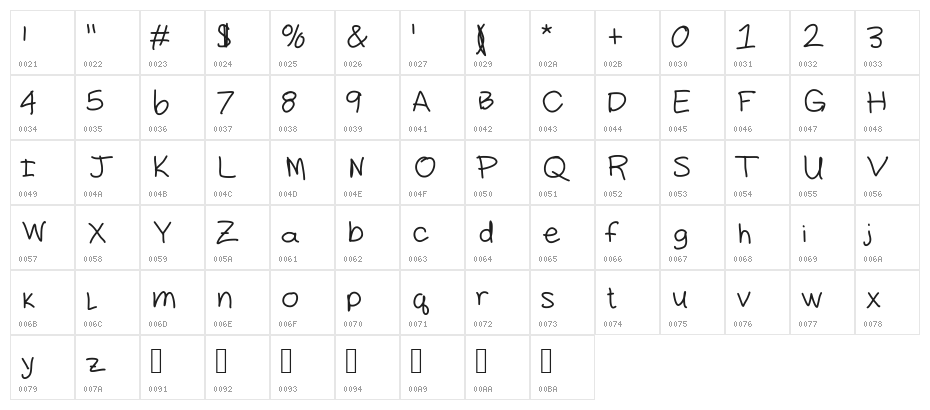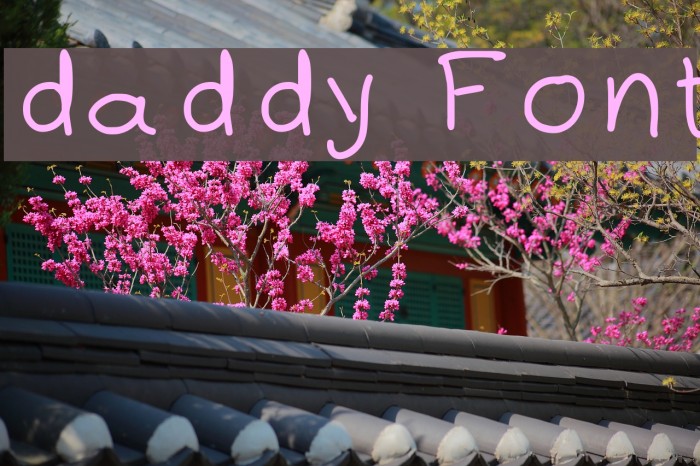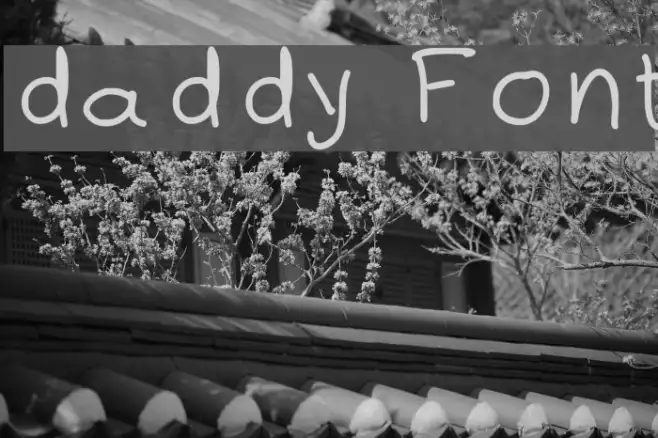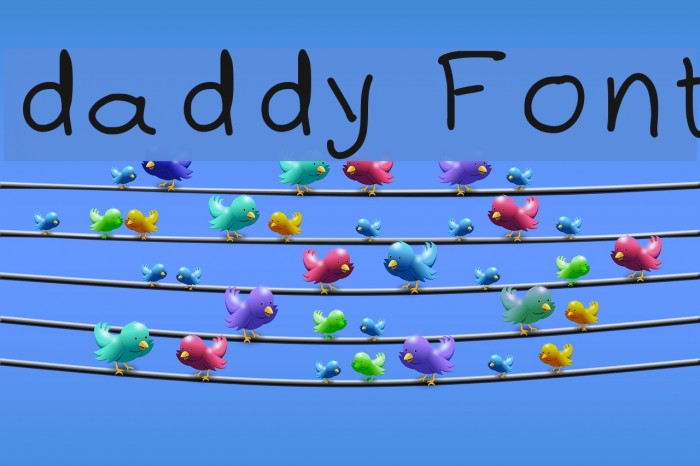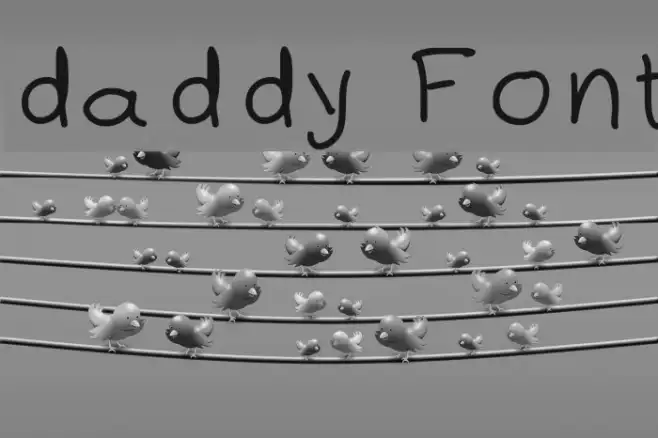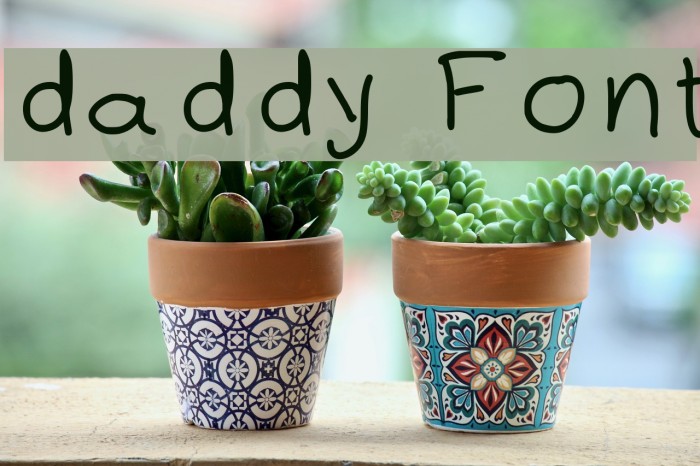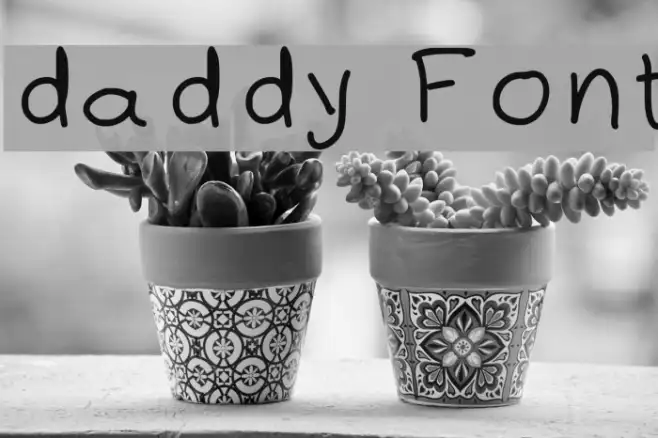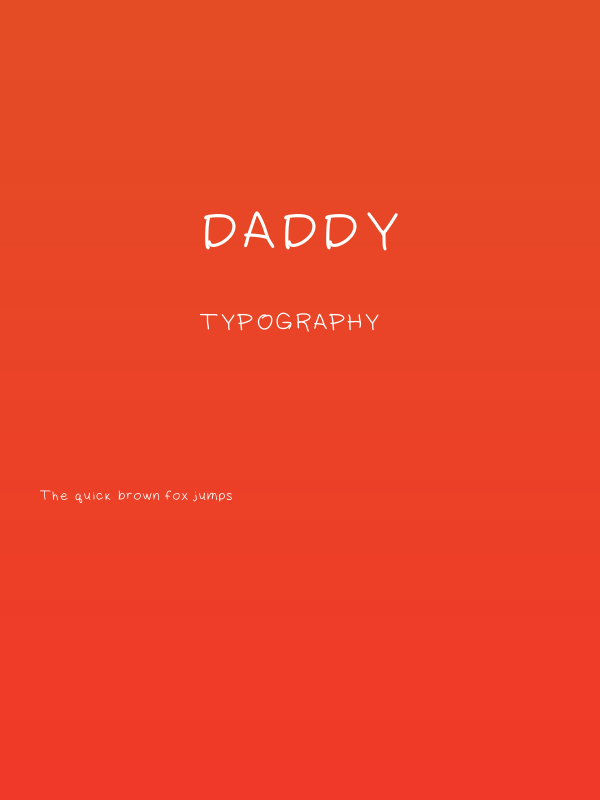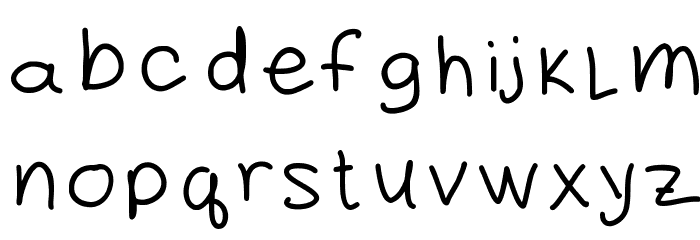
daddy Font
daddy Description
This font exudes a playful and casual handwritten style, characterized by its irregular, slightly tilted letterforms that mimic the natural flow of handwriting. The strokes are consistent in thickness, giving it a uniform appearance while maintaining a relaxed and informal vibe. The uppercase letters are slightly larger than the lowercase, adding to the font's approachable and friendly feel. The numerals and special characters follow the same handwritten aesthetic, ensuring cohesion across all text elements. This font is perfect for projects that require a personal touch, such as greeting cards, invitations, or informal branding.
| Use Case | Headlines, Informal text, Personal projects |
| Proposed Projects | Ideal for greeting cards, invitations, personal branding, and informal communications. |